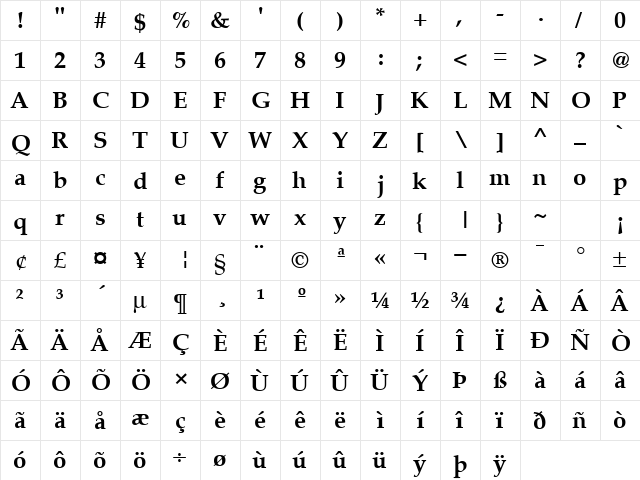
LatinoPal6 BoldSH Font Preview
LatinoPal6 BoldSH
LatinoPal6 BoldSH Font Details
Design Context for LatinoPal6 Typeface
LatinoPal6 offers clean, dependable letterforms without strong stylistic allegiance, making it a practical choice for designers who need flexibility. The heavy weight commands attention and anchors typographic hierarchies.